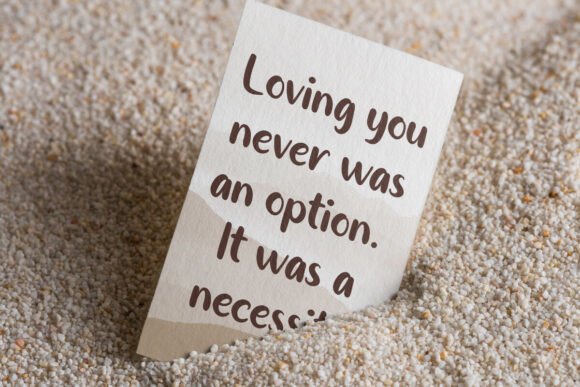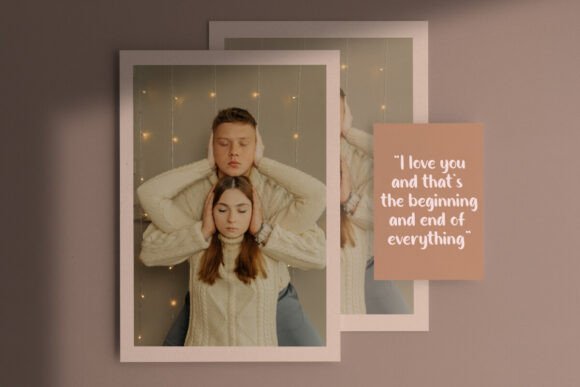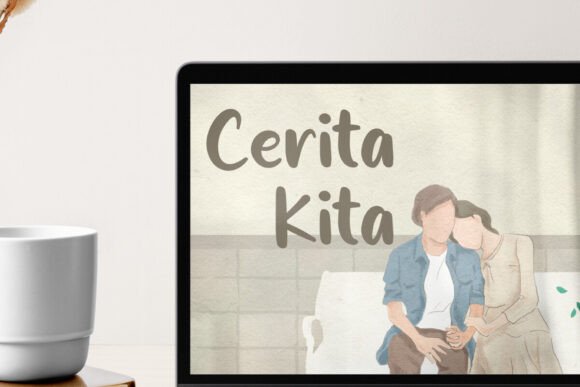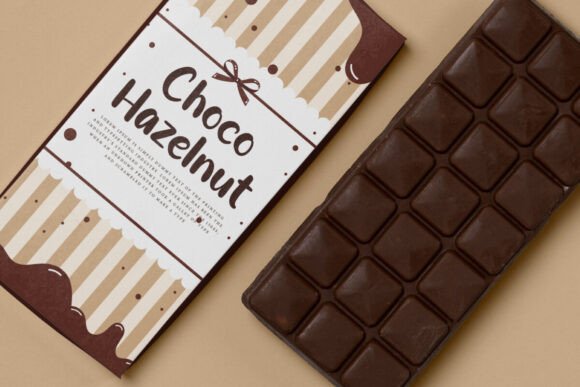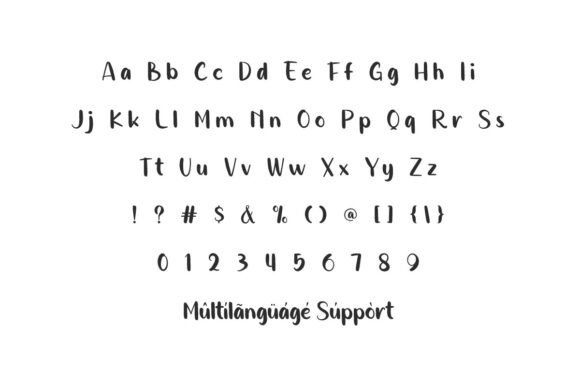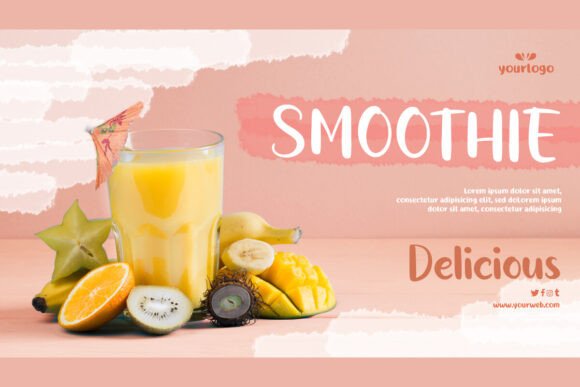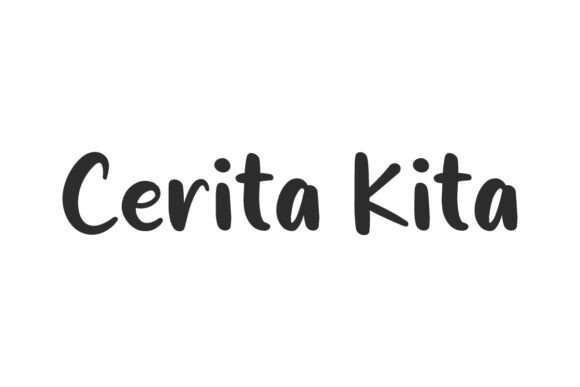
Cerita Kita Font: The Perfect Handwritten Display Font for Your Brand
In the world of typography, a font can make or break a brand’s identity. For businesses in the food, design, and creative industries, a charming yet modern handwritten display font can be the perfect complement to their visual aesthetic. Introducing Cerita Kita, a beautifully crafted font that checks all the right boxes. In this article, we’ll dive into the world of Cerita Kita and explore its features, benefits, and uses.
What is Cerita Kita Font?
Cerita Kita is a modern handwritten display font designed to add a touch of personality to your brand. With its clean lines and solid structure, this font is perfect for businesses that want to convey a sense of fun and style. Made with a brush, Cerita Kita has a unique and organic feel that’s sure to capture the attention of your audience.
Who is Cerita Kita Font Suitable for?
Cerita Kita is an incredibly versatile font that can be used by a wide range of businesses and industries. Some of the perfect matches for this font include:
- Cafés and coffee shops
- Chocolate manufacturers and chocolatiers
- Culinary ventures and food trucks
- Food bloggers and influencers
- Graphic design studios and creative agencies
- Homeware and furniture stores
- Photography studios and printing services
- Publishing companies and bookstores
- Restaurants and bars
Features of Cerita Kita Font
So, what makes Cerita Kita so special? Here are just a few of its standout features:
- Handwritten style: Cerita Kita has a beautiful, handwritten feel that’s perfect for adding a personal touch to your brand.
- Clean lines and solid structure: The font’s clean lines and solid structure give it a modern and sophisticated feel.
- Fun and stylish: Cerita Kita is a fun and stylish choice that’s sure to add a touch of personality to your brand.
- Carefully crafted with love and attention to detail: The font has been carefully crafted with love and attention to detail, ensuring that it’s of the highest quality.
Benefits of Using Cerita Kita Font
So, why should you choose Cerita Kita for your brand? Here are just a few of the benefits of using this beautiful font:
- Stand out from the crowd: Cerita Kita is a unique and eye-catching font that’s sure to help your brand stand out from the crowd.
- Convey a sense of fun and personality: The font’s handwritten style and clean lines convey a sense of fun and personality that’s perfect for businesses that want to connect with their audience.
- Perfect for branding and marketing materials: Cerita Kita is perfect for use in branding and marketing materials, such as logos, packaging, and advertisements.
- Easily readable: The font is easily readable, even at small sizes, making it perfect for use in a variety of applications.
How to Use Cerita Kita Font
So, how can you use Cerita Kita to elevate your brand? Here are a few ideas to get you started:
- Logos and branding: Use Cerita Kita as a logo font to add a touch of personality to your brand.
- Packaging and labeling: Use the font on packaging and labels to add a touch of whimsy and fun.
- Marketing materials: Use Cerita Kita in marketing materials, such as flyers, brochures, and advertisements.
- Social media graphics: Use the font to create eye-catching social media graphics that will help your brand stand out.
In conclusion, Cerita Kita is a beautiful and versatile handwritten display font that’s perfect for businesses in a variety of industries. With its clean lines, solid structure, and fun and stylish feel, it’s sure to add a touch of personality to your brand. Whether you’re looking to create a logo, packaging, or marketing materials, Cerita Kita is a great choice. So why not give it a try and see how it can elevate your brand?